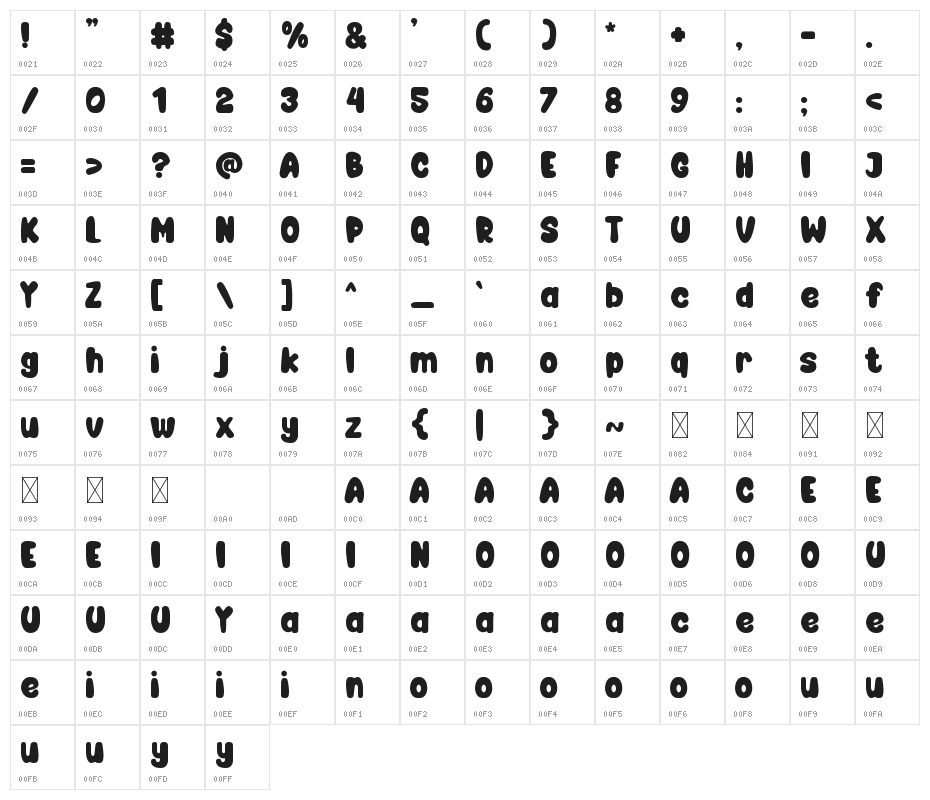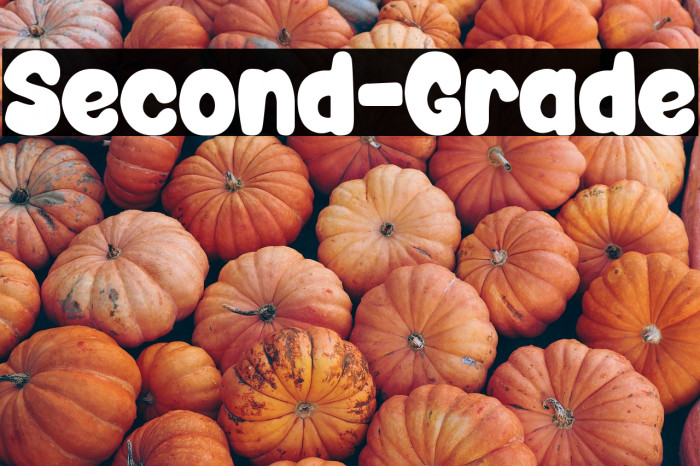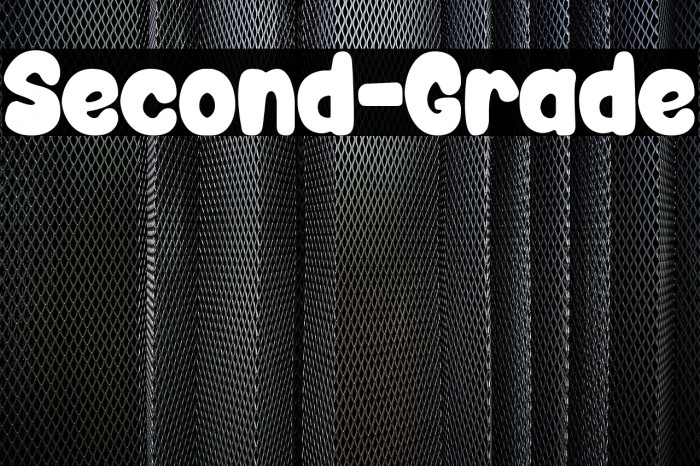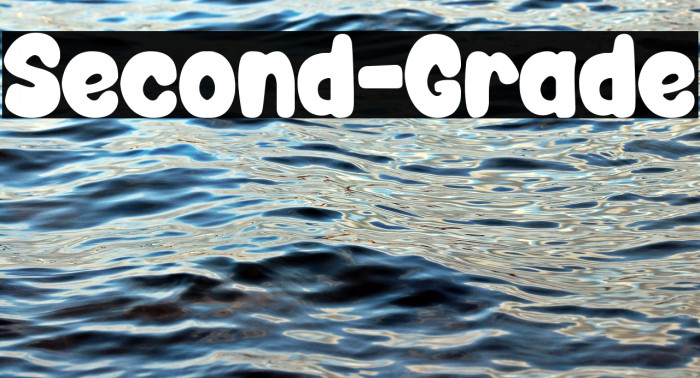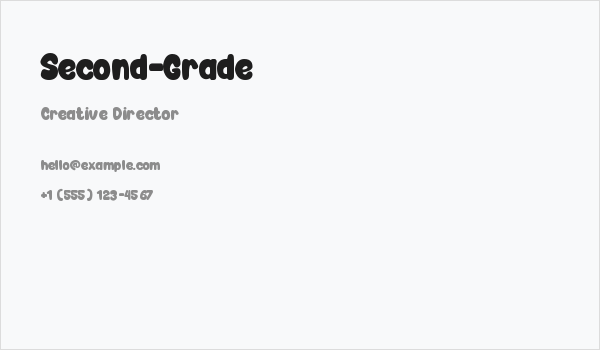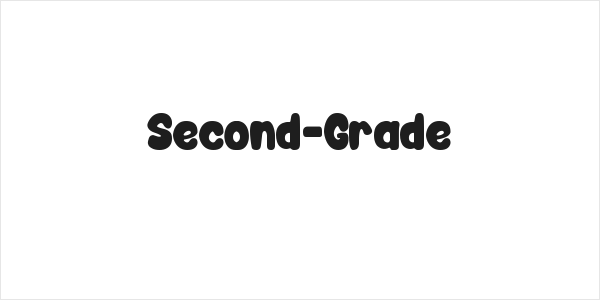
Second-Grade Font
Second-Grade Description
This playful and bold font features rounded, bubbly characters that convey a sense of fun and whimsy. The letters are thick and substantial, with a uniform stroke width that gives them a cartoonish and approachable appearance. The font is highly legible, making it suitable for a variety of creative projects. Its exaggerated curves and soft edges create a friendly and inviting look, perfect for children's materials or any design that aims to evoke a sense of joy and playfulness. The numbers and special characters maintain the same playful style, ensuring consistency across all text elements.
| Proposed Projects | Ideal for children's books, playful branding, party invitations, and educational materials. |